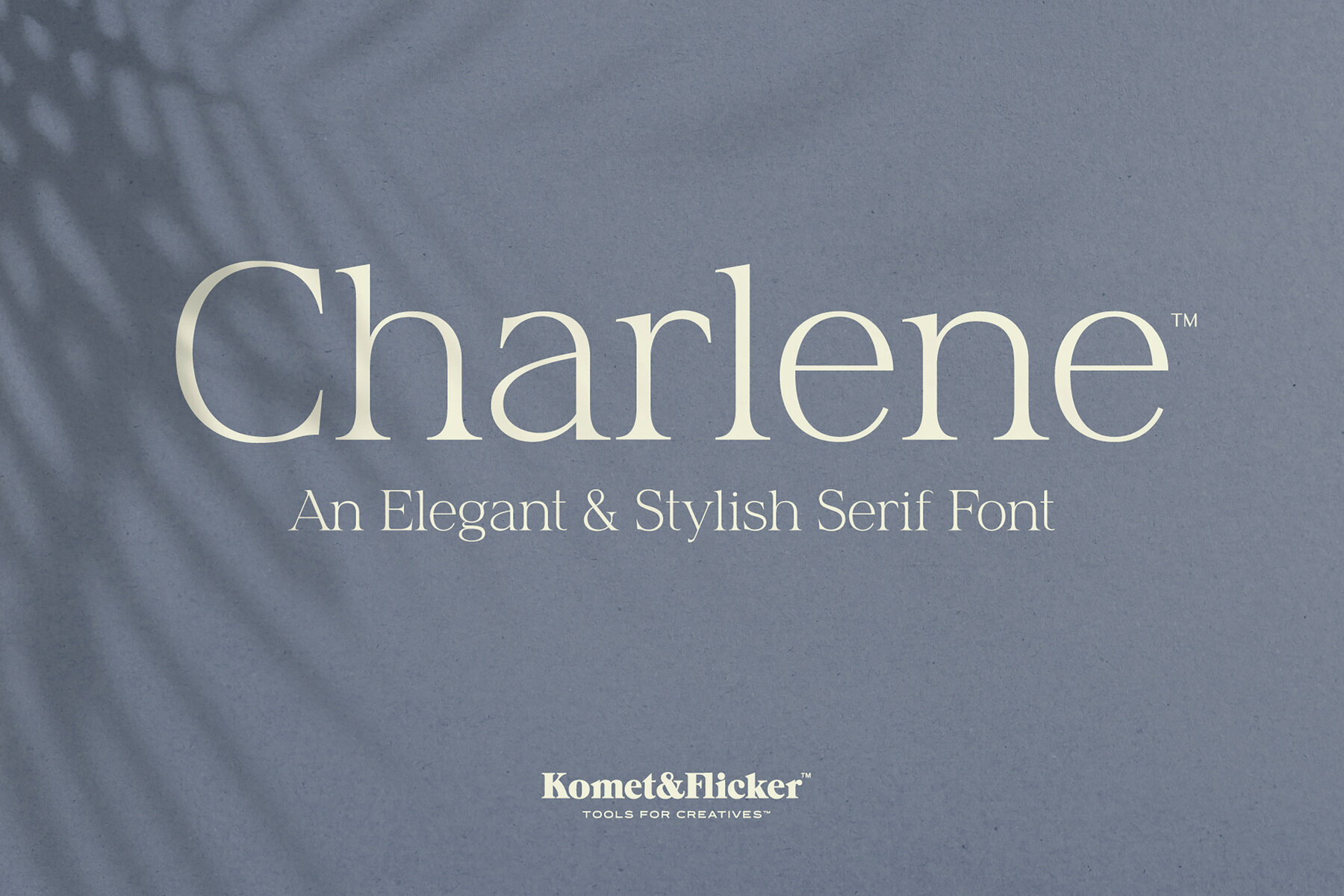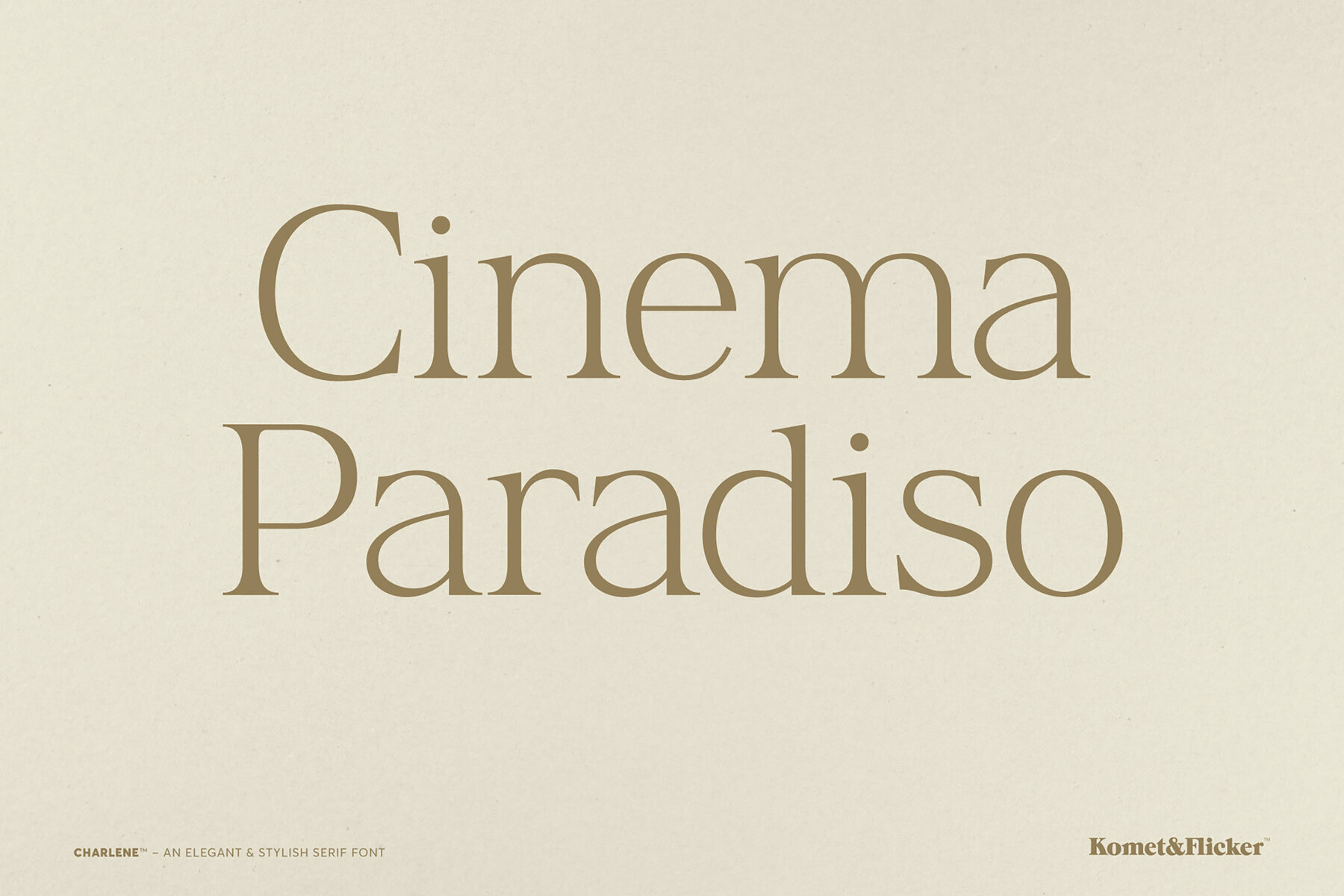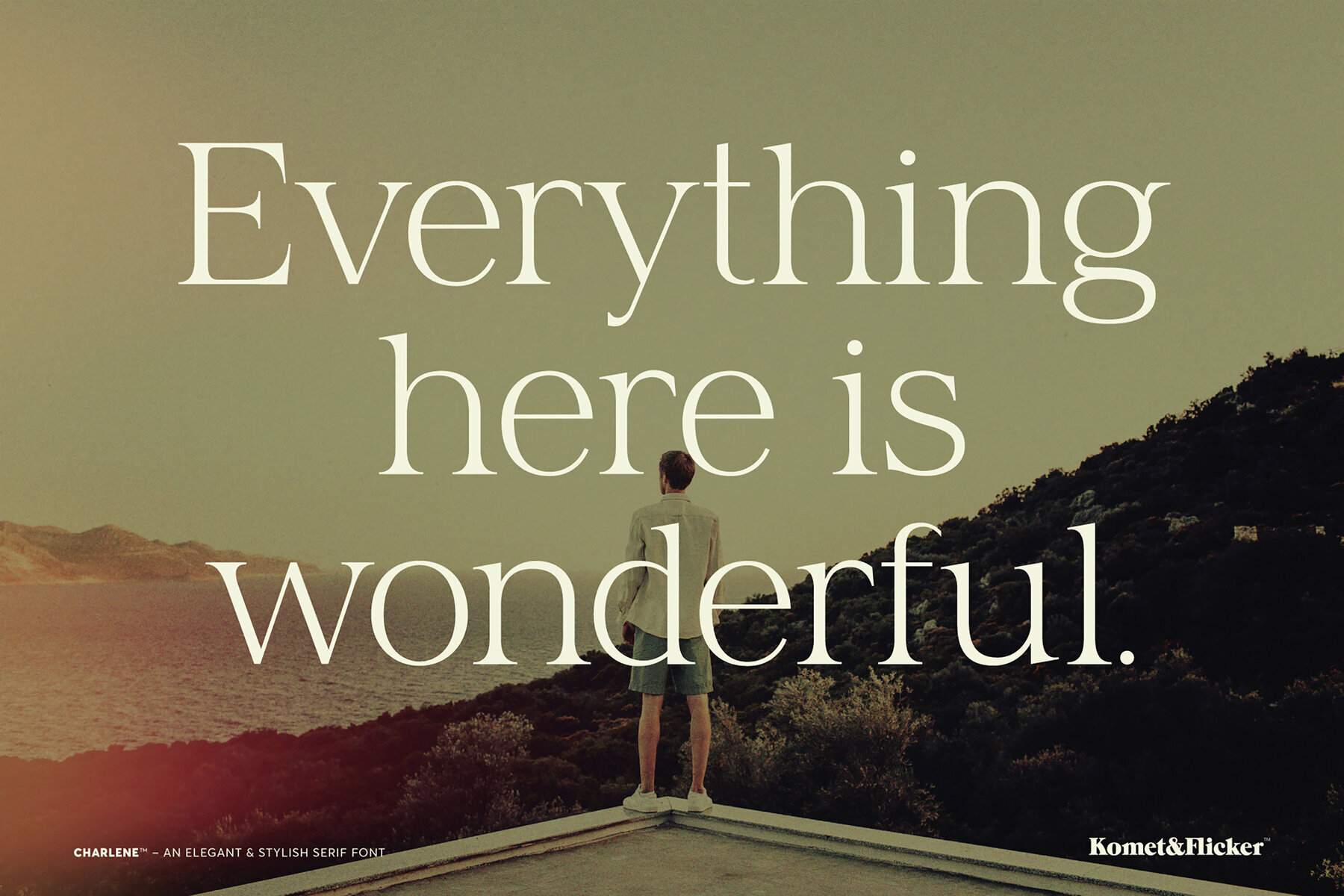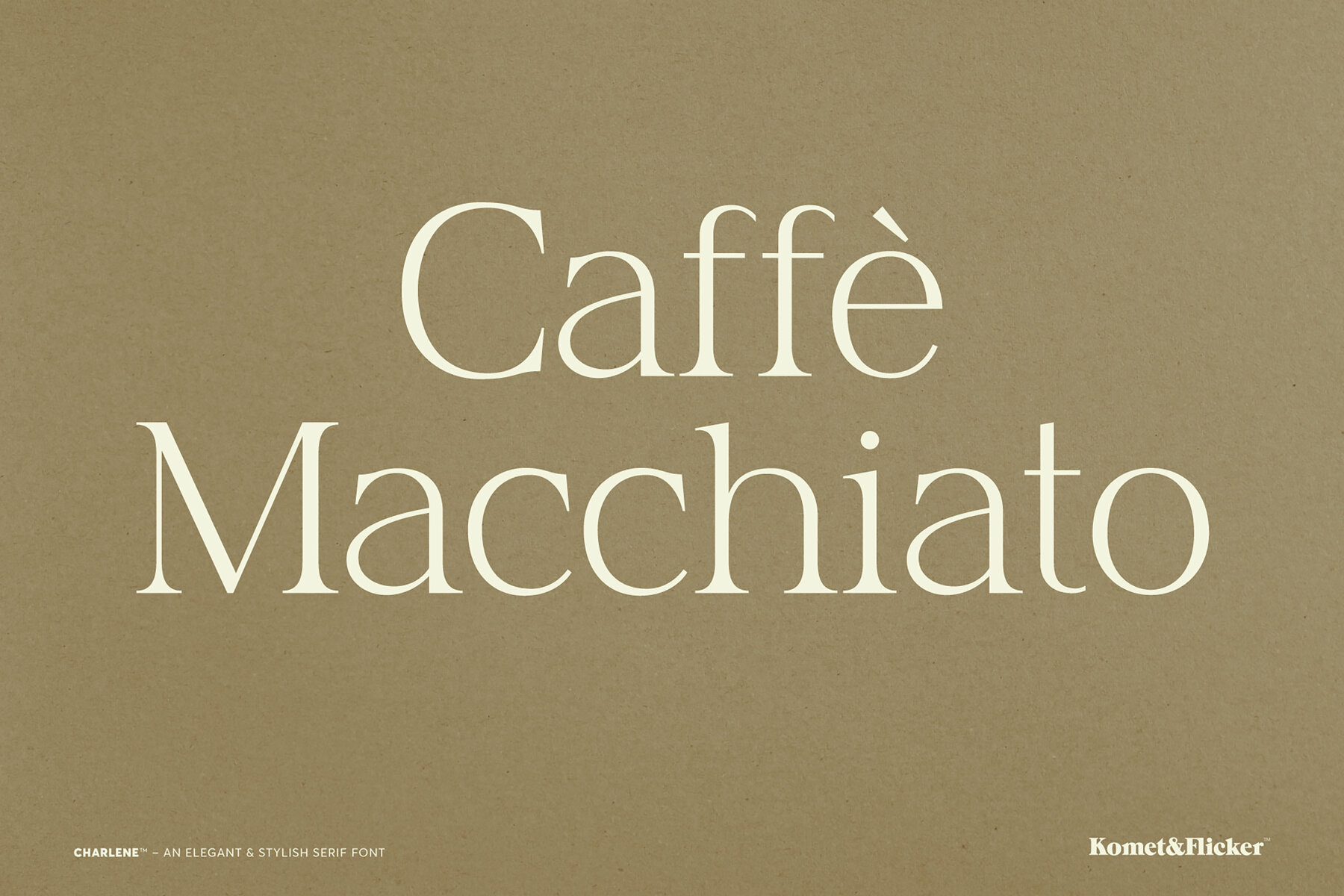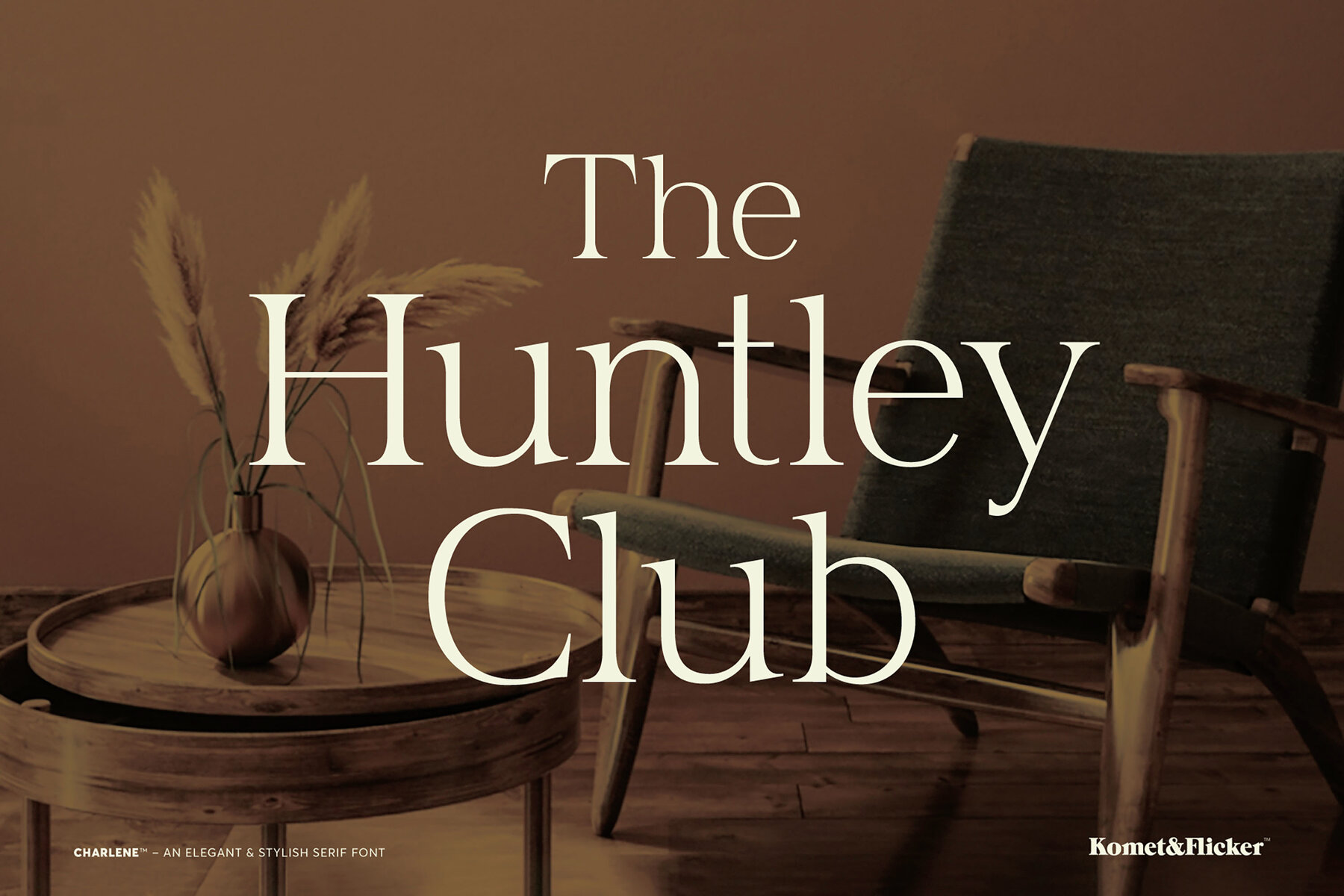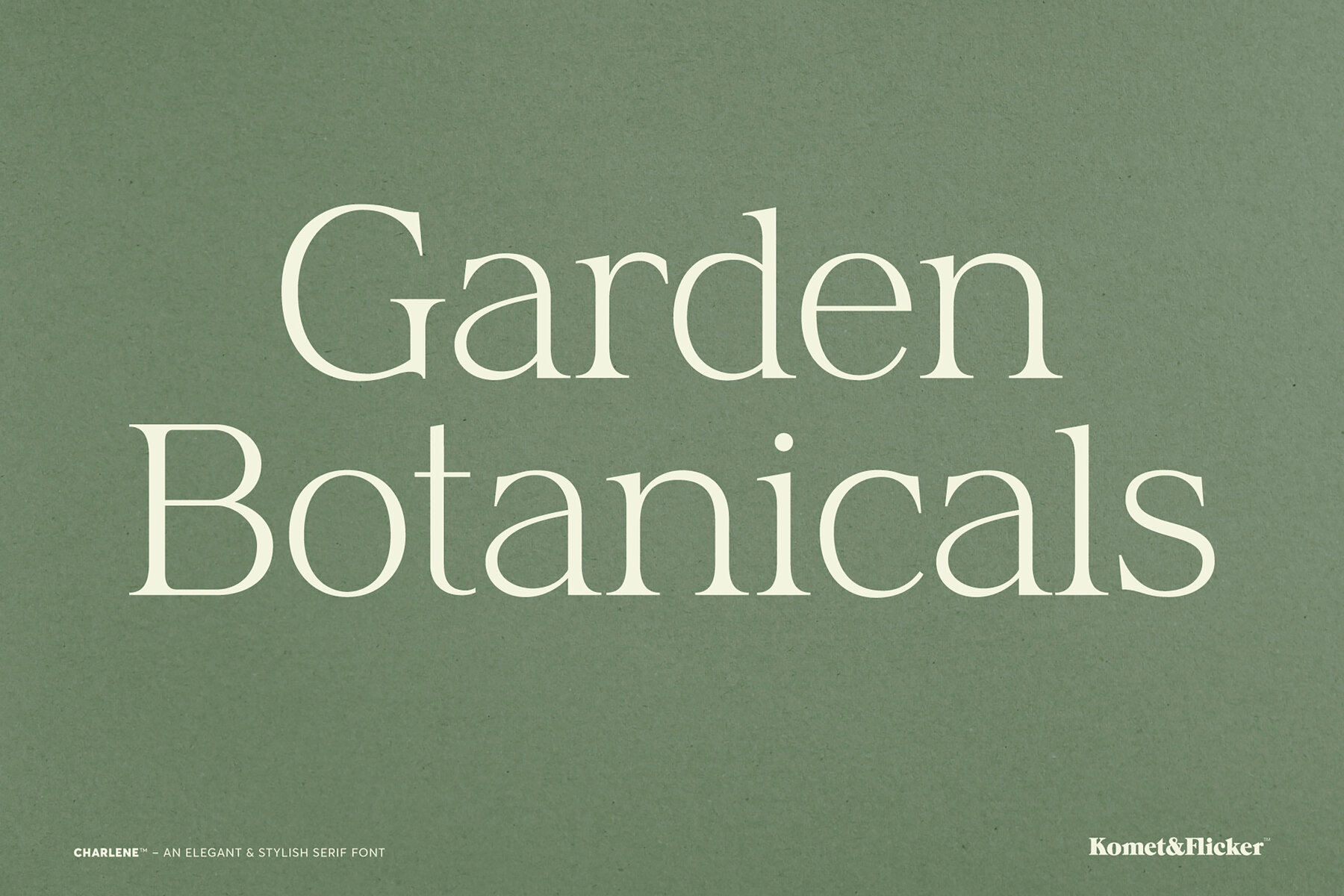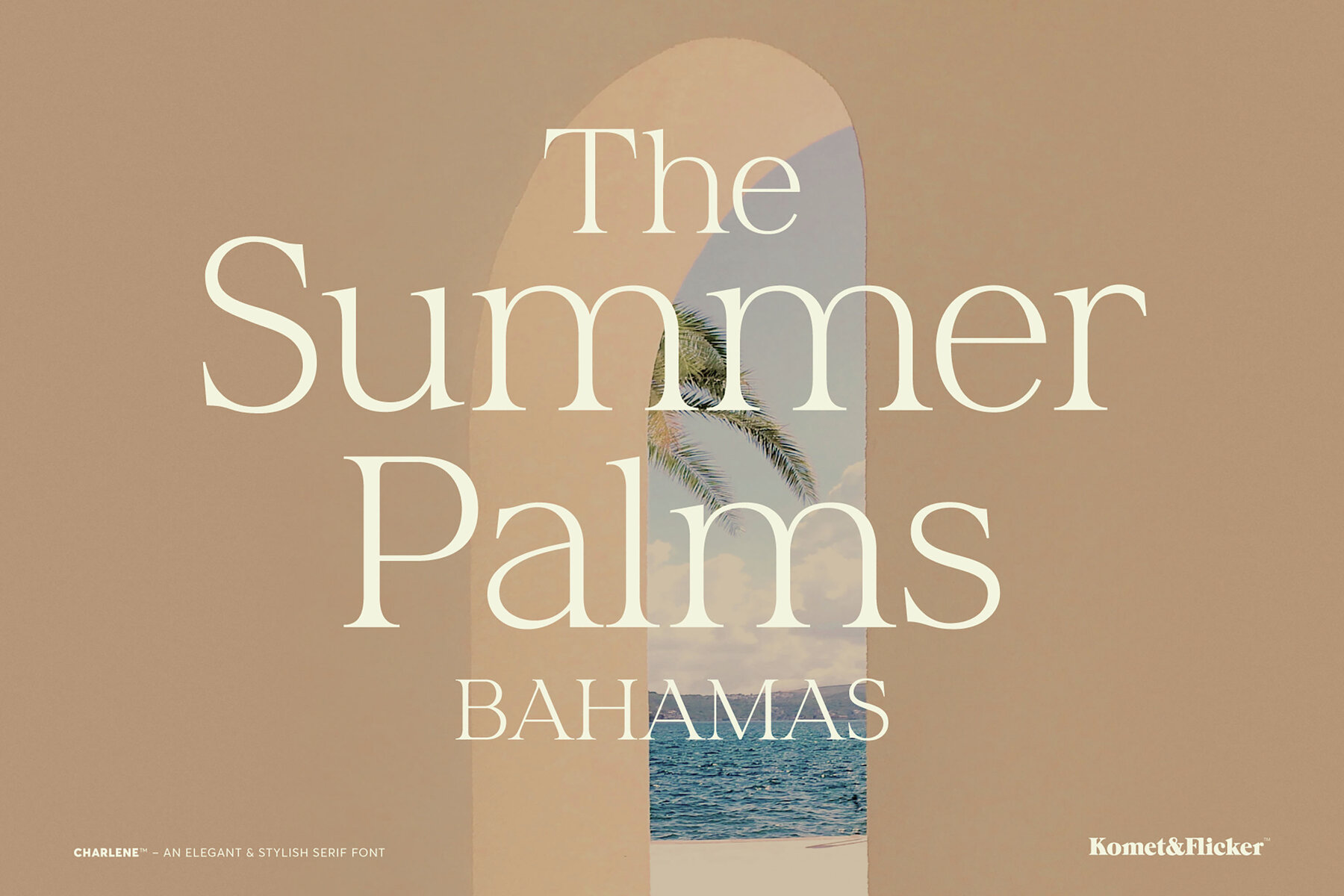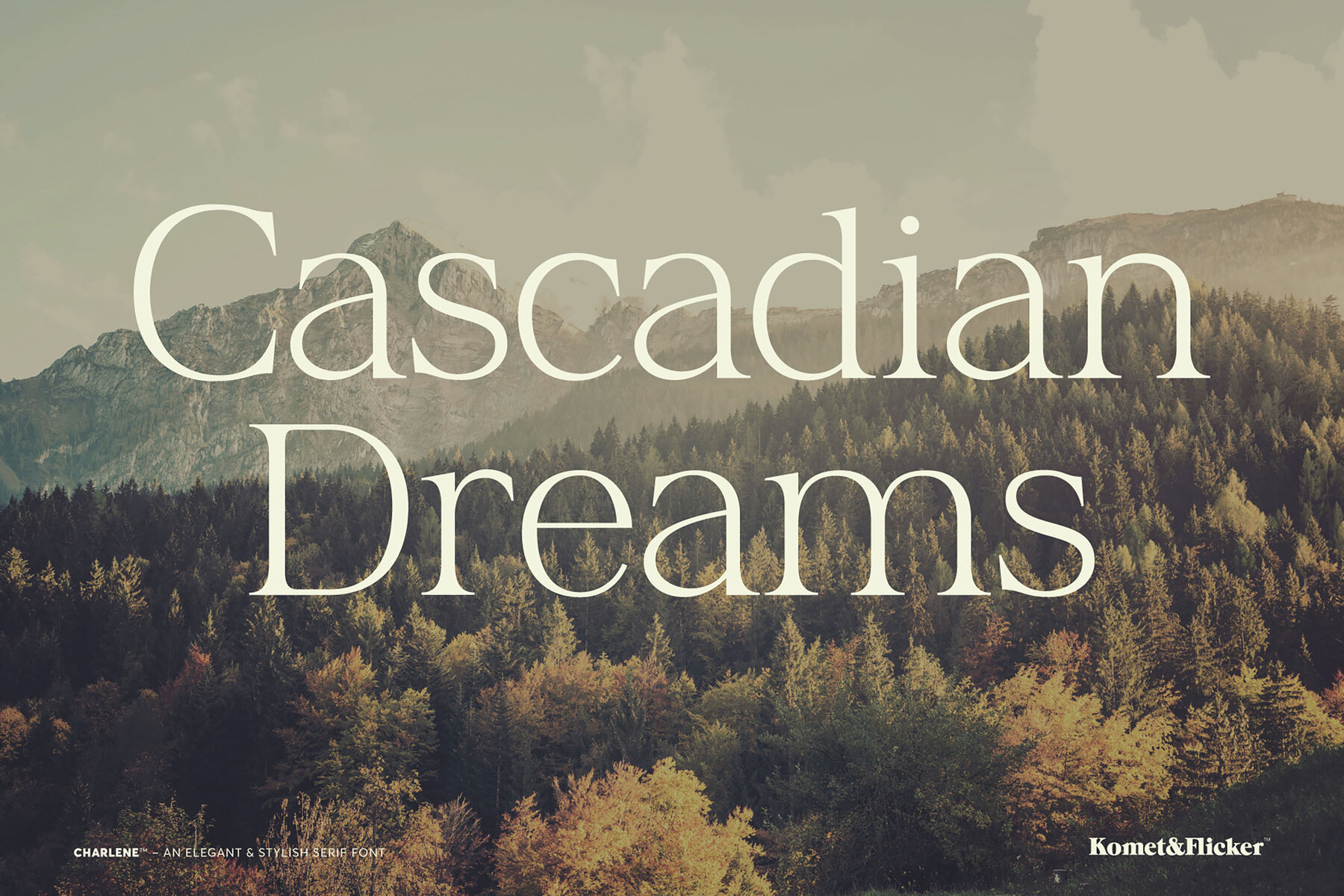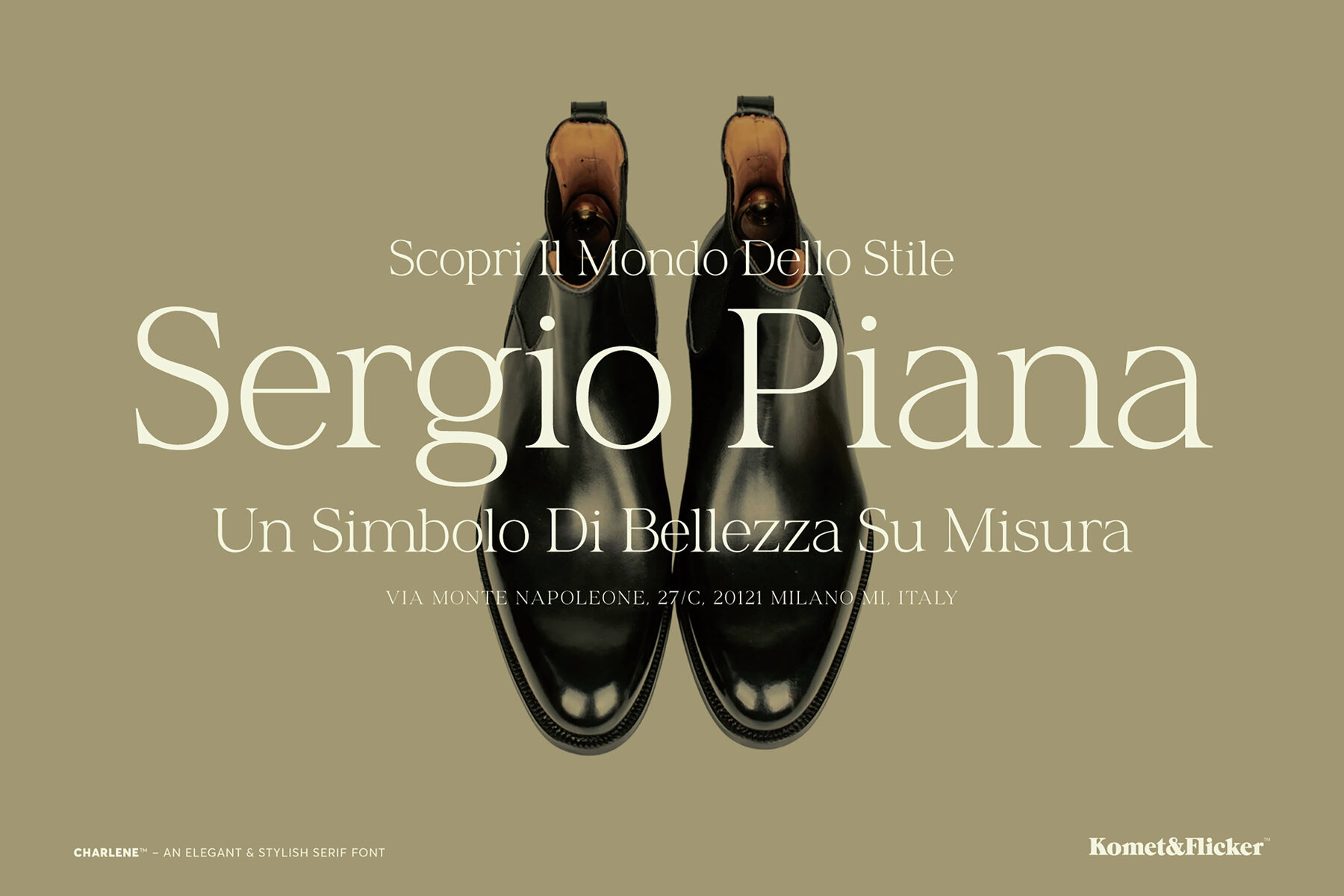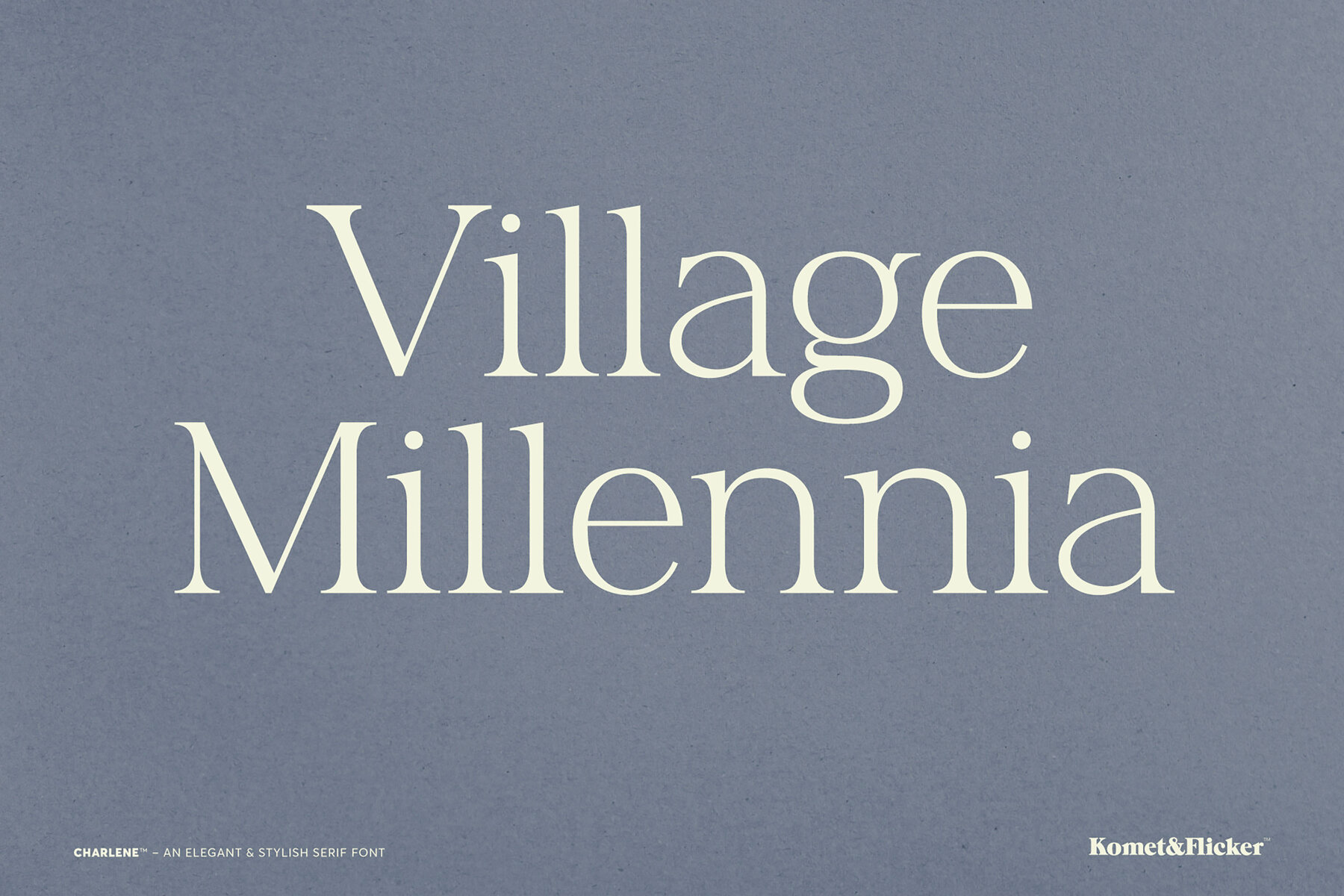
Charlene Font
Charlene Light
Discover Charlene, a sophisticated serif font designed to elevate your projects with elegance and style. This font melds graceful curves with a timeless structure, offering an aura of charm and professionalism. Perfect for editorial design, branding, packaging, or high-end invitations, Charlene satisfies the needs of creators who seek both beauty and precision. The custom glyphs in Charlene can easily be accessed through the "Glyphs" panel in Illustrator and Photoshop, allowing for seamless integration into your design process. Choose Charlene to add a touch of refined sophistication to your typography today.Charlene: The Quintessential Serif Font
Features of Charlene